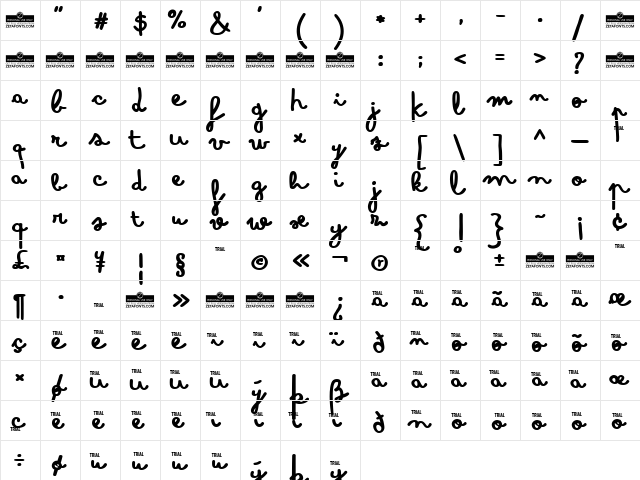
Bimbo Whiteboard Free Font
Bimbo Whiteboard
Style: Whiteboard
Foundry: Zetafonts
Designer: Francesco Canovaro with Chiara Ghezzi and Niklas Jonsson after Jonathan Calugi
Bimbo Family
Bimbo Whiteboard
Complete Bimbo Whiteboard glyph index. Displaying only characters natively supported by Bimbo Whiteboard font.
Design Context for Bimbo
Bimbo is a composed and adaptable typeface that performs quietly and consistently across a wide range of design contexts.